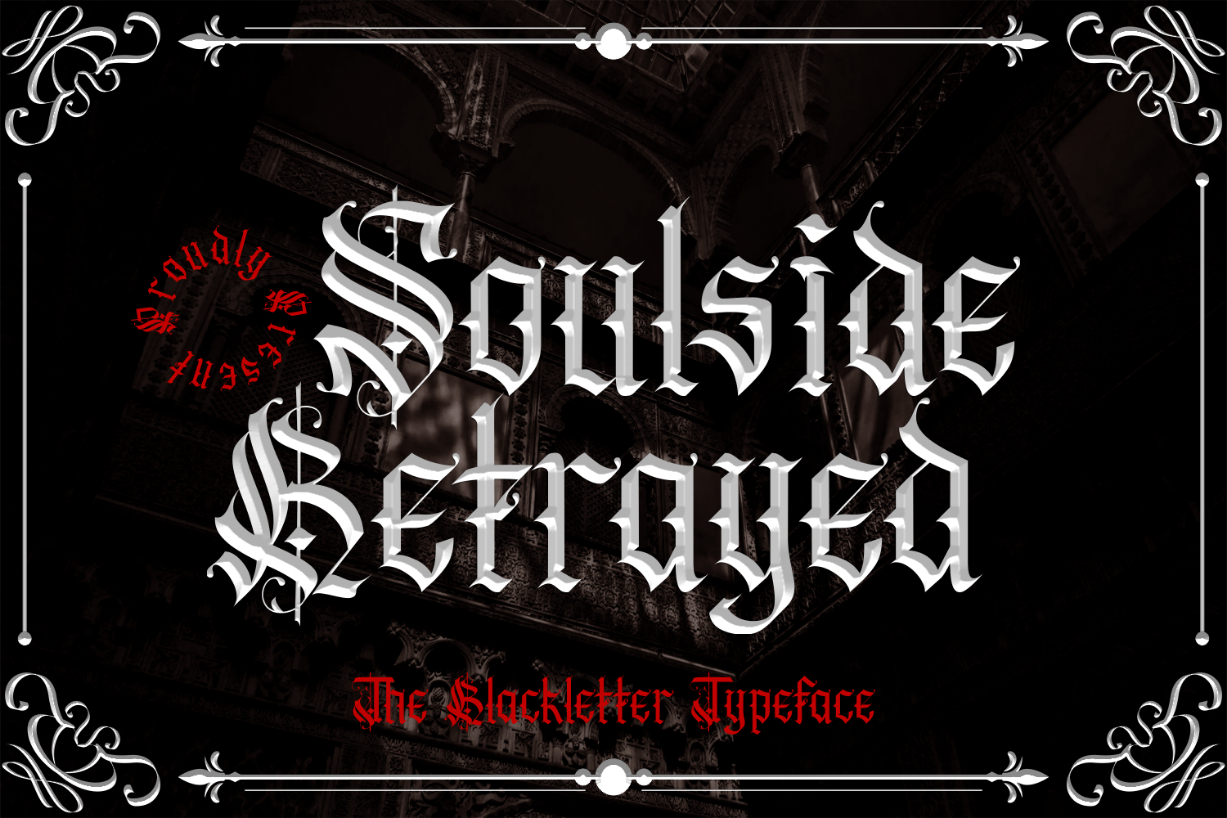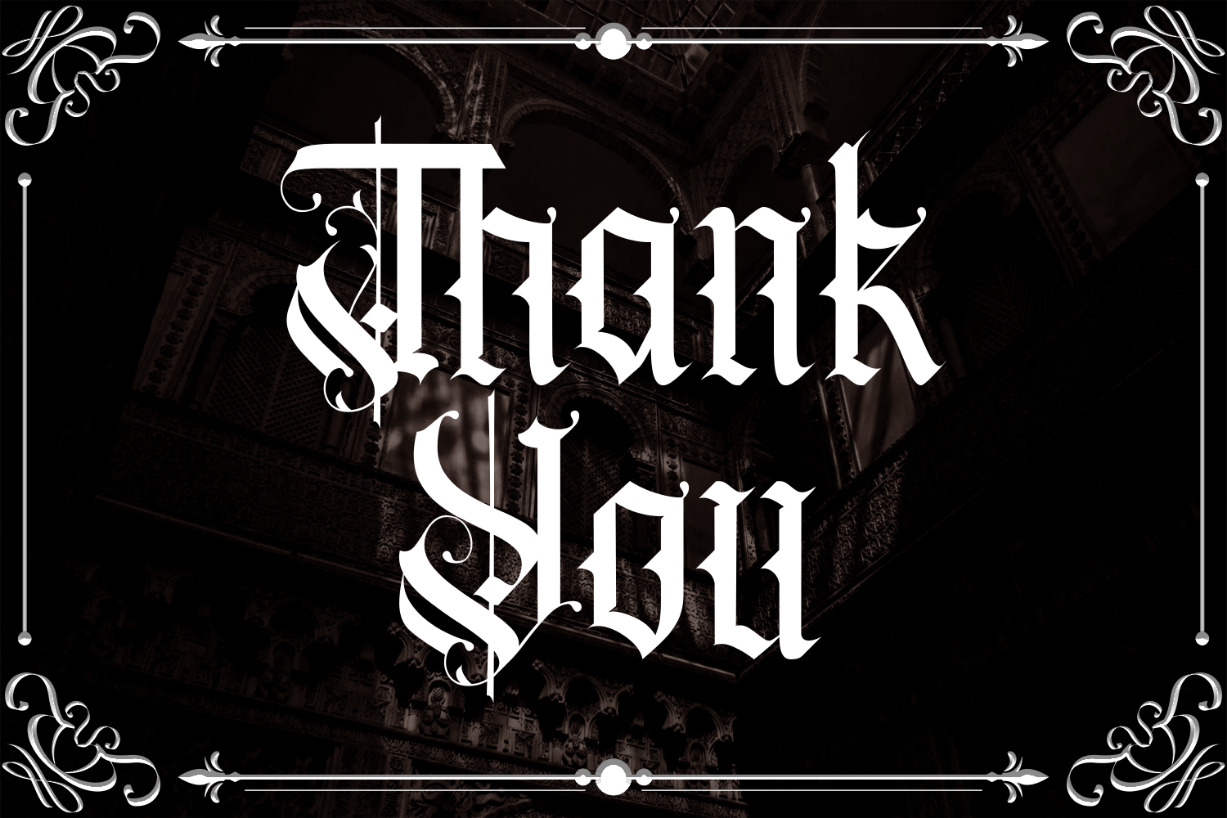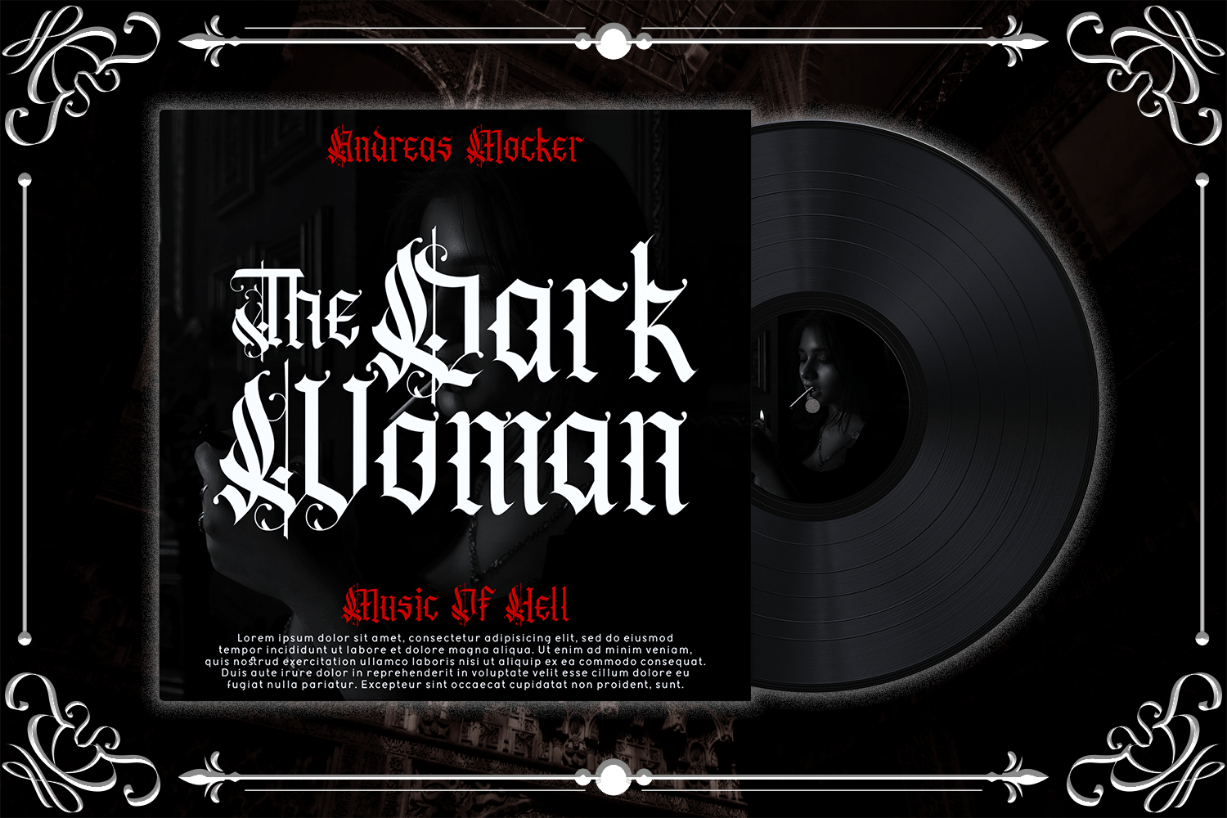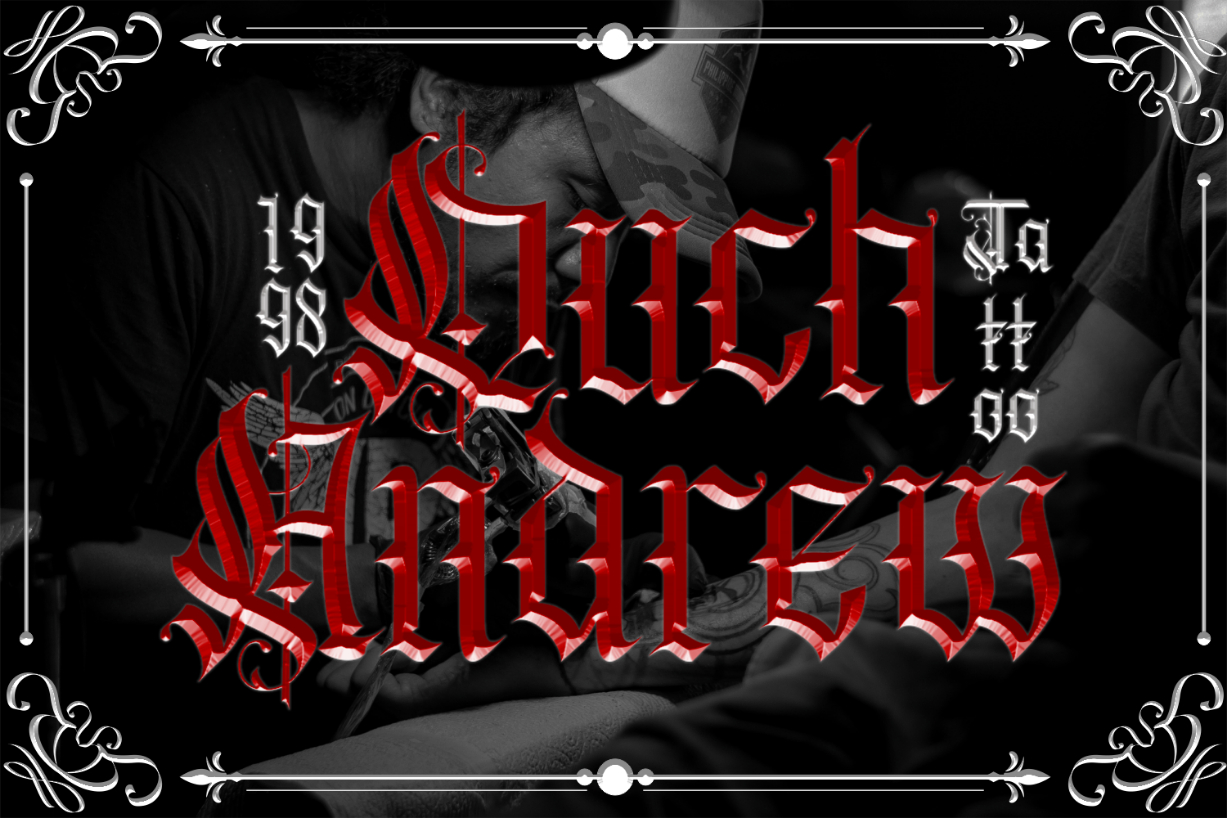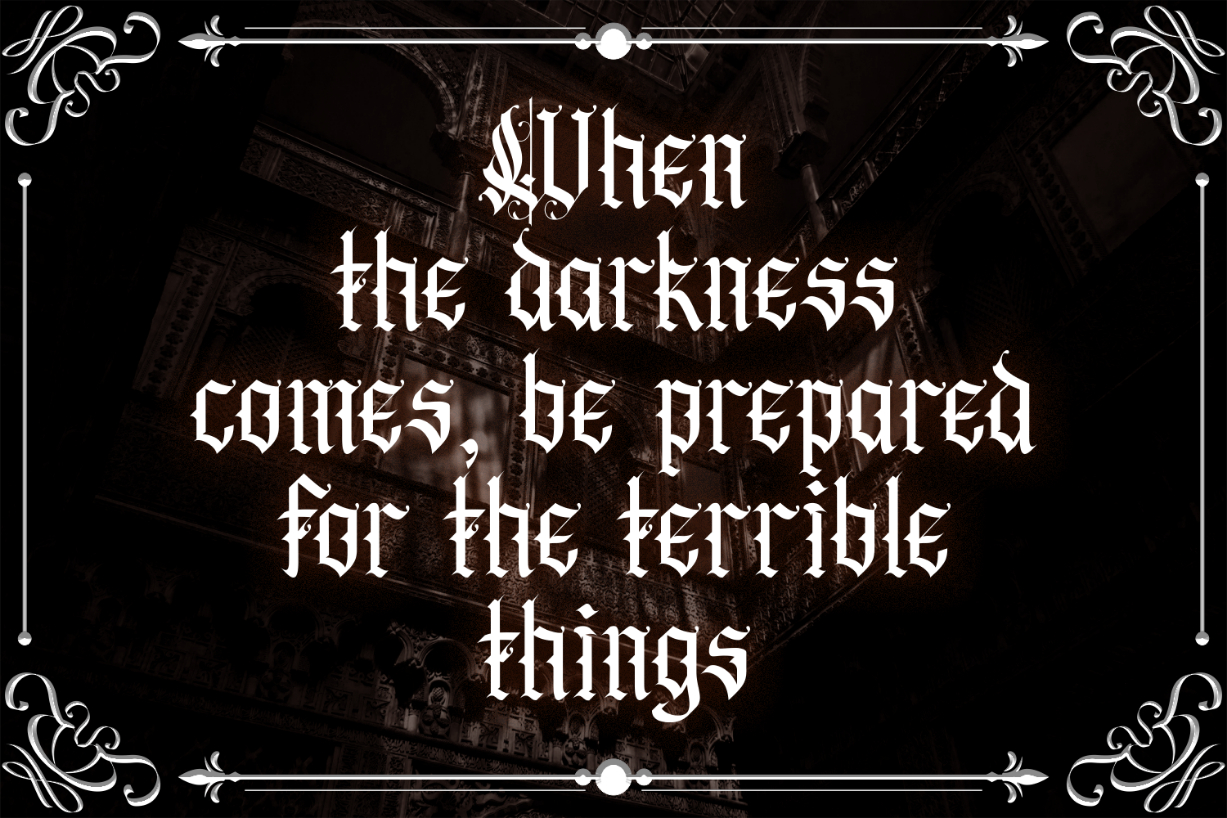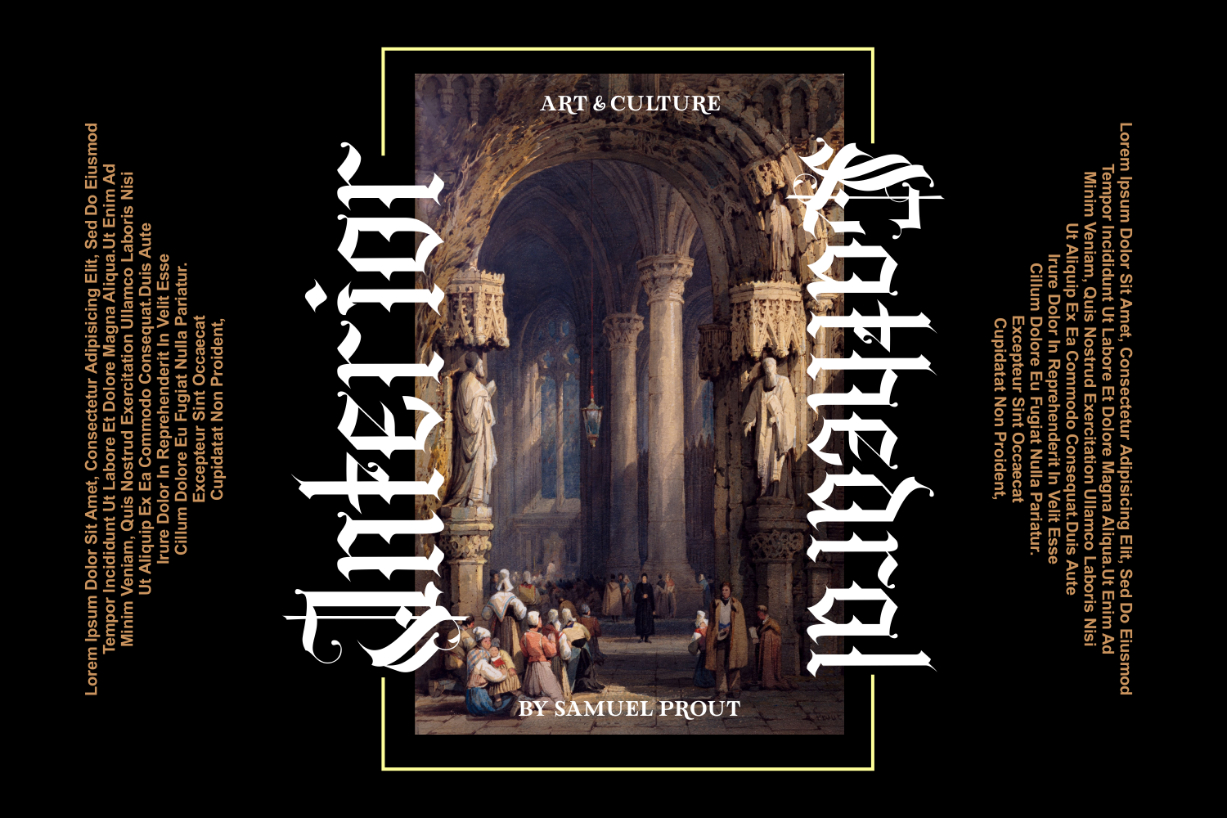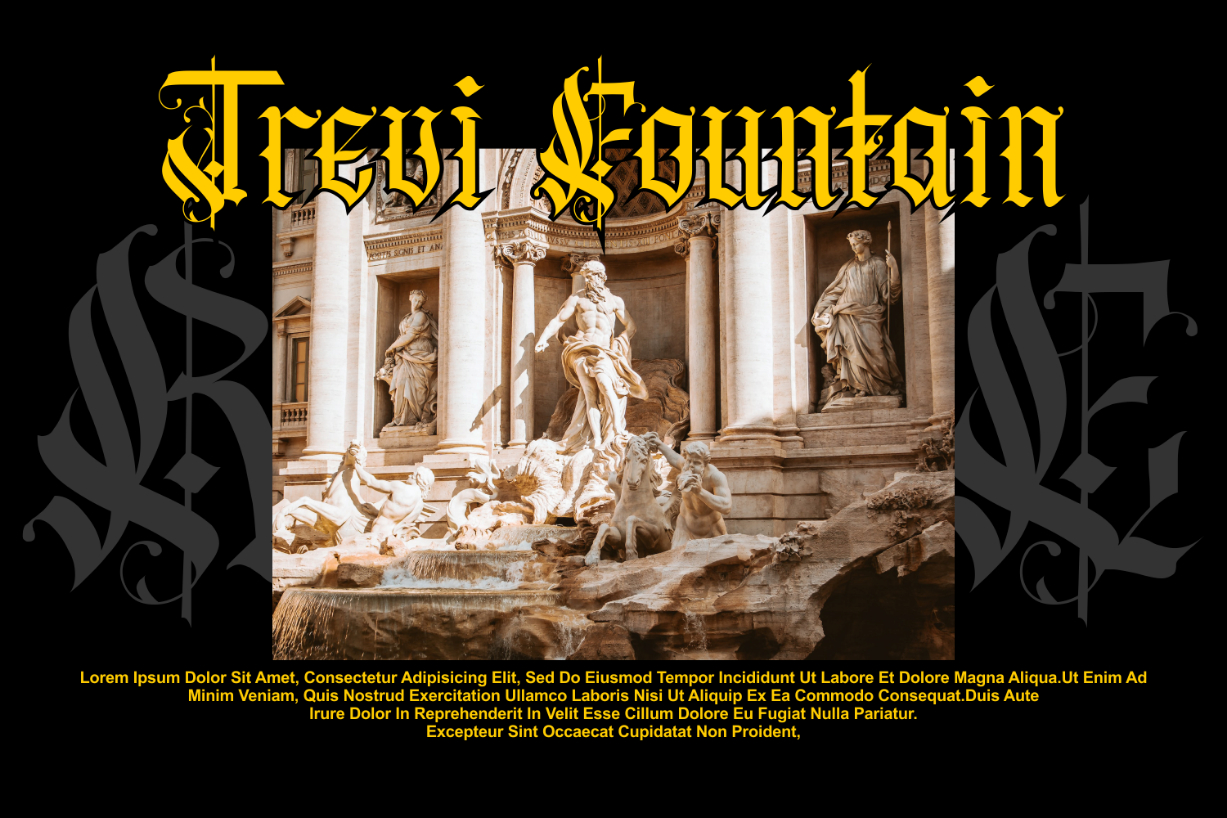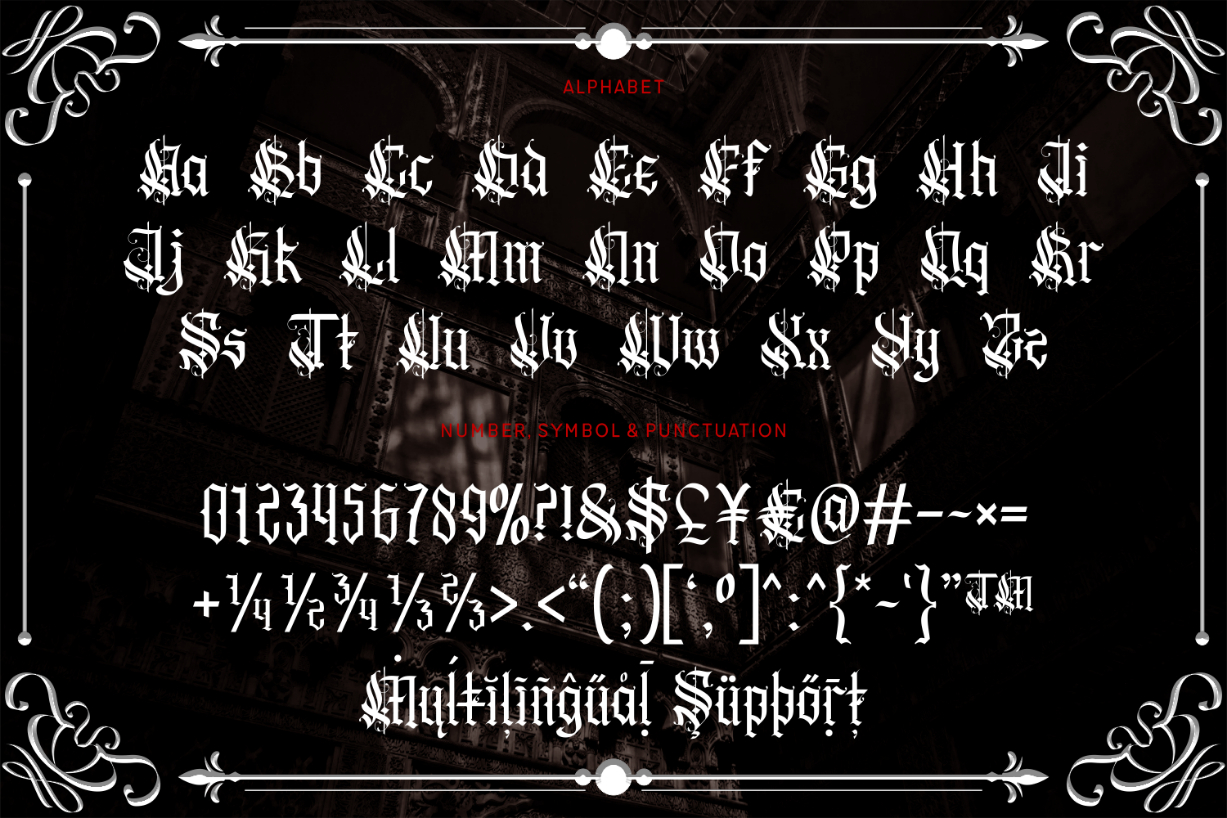
Soulside Betrayed Font
About Soulside Betrayed Font
Soulside Betrayed is a tremendous and commanding blackletter font that’s sure to make a statement. Its bold and powerful design exudes strength and authority, making it perfect for logos, headlines, and other impactful designs. Let this typeface add a sense of gravitas and prestige to your creations, and make your message impossible to ignore.